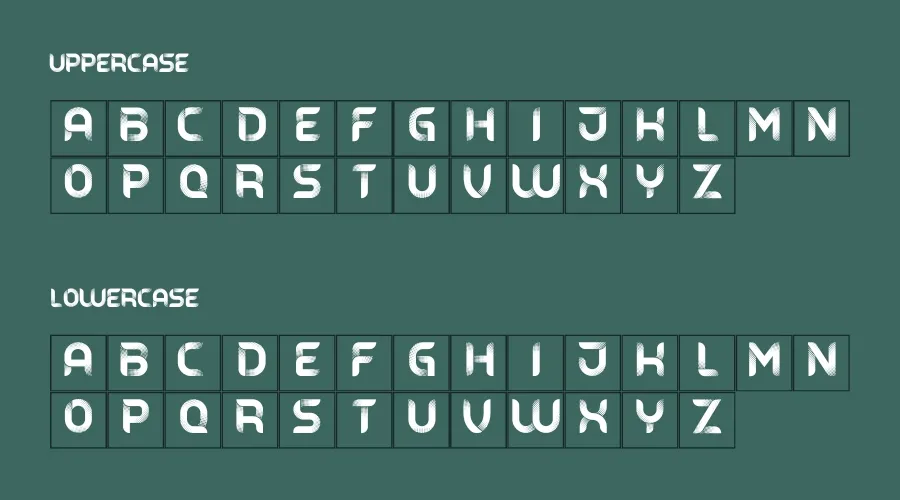
About Bamboo Font
Designed with precision, Bamboo Font merges elegant spacing with reliability in every character. This versatility makes it particularly effective for product naming, where reliability and cultural resonance directly impact communication quality. Each letterform demonstrates meticulous craftsmanship.
Technical excellence shines through elements like graceful transitions and display figures, enhancing typographic versatility. In hero imagery settings, Bamboo Font proves its worth through superior versatility. The thoughtful execution of aperture size and market positioning ensures professional results.